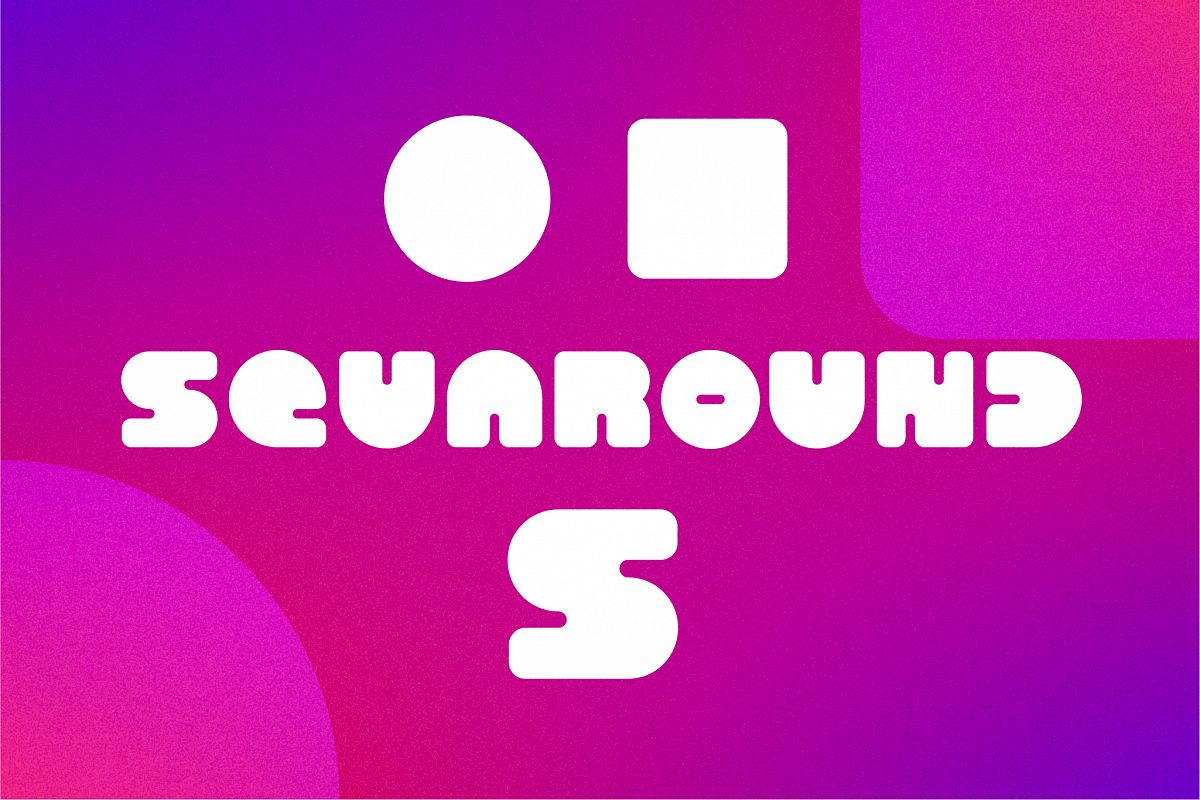
SQUAROUND S
SQUAROUND-S-Soft
The construction of tis typeface starts from the base of Squaround, but the terminations are rounded on all sides, giving a softer touch to the view and more neat, its biggest difference from its old sister.